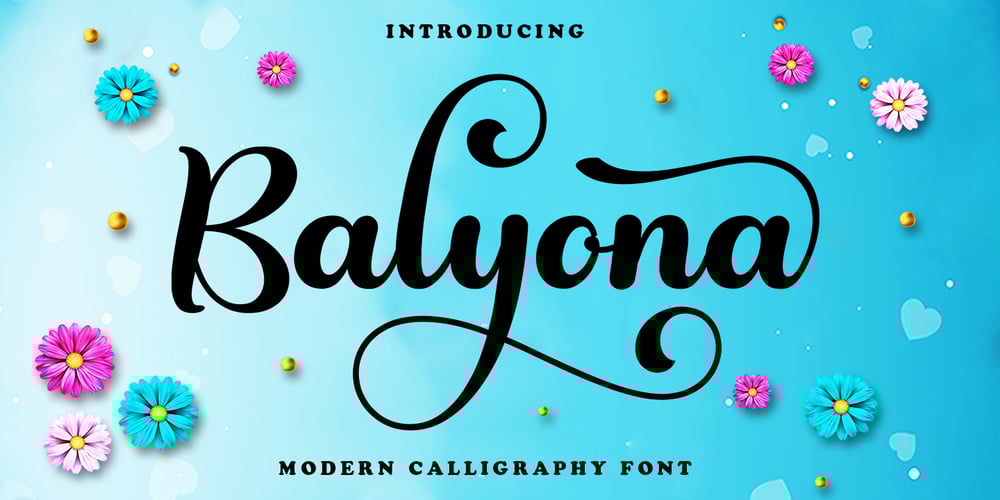
Balyona Font Family was designed by Wais Alqarni and published by Ws Studio. Balyona contains 1 styles and family package options. Balyona is a beautiful light handwritten font with a unique feel and a stunning impact. It will add a luxury spark to any design project that you wish to create! This font is PUA encoded which means you can access all of the amazing glyphs and ligatures with ease!